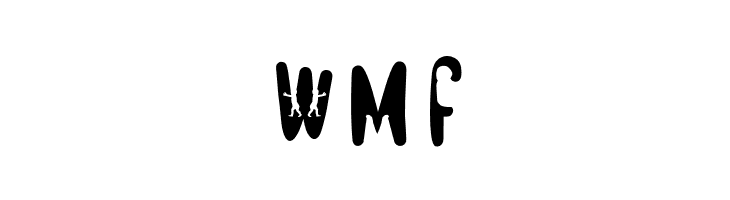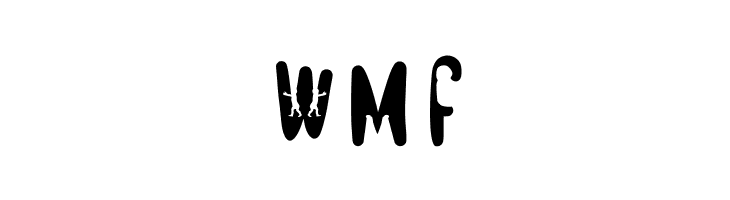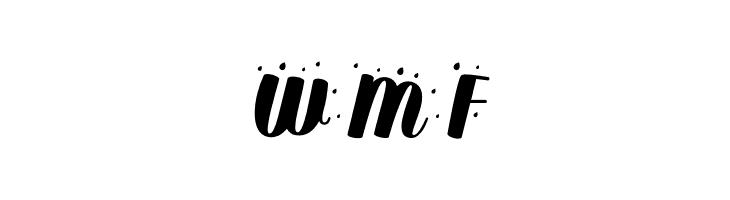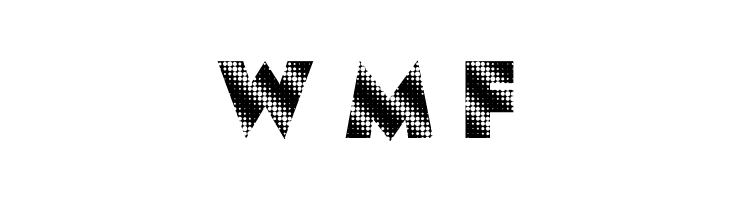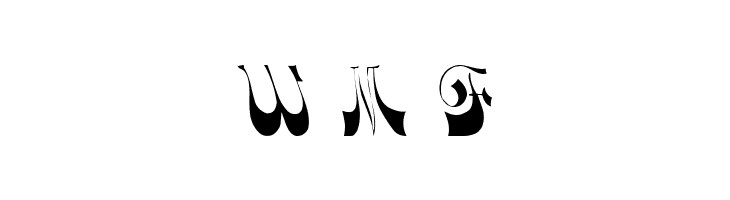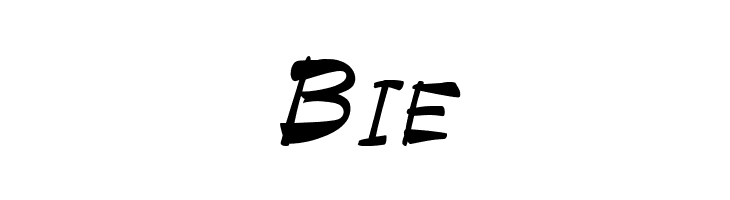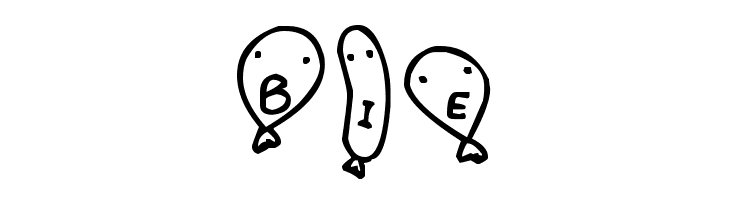
( Fonts by Untitled Motion )
A playful, polka-dotted decorative font with bold, rounded characters.
( Fonts by Untitled Motion )
A bold, dotted font with a playful and dynamic pop art style.
( Fonts by Billy Argel Fonts ® )
A bold, geometric decorative font with halftone patterns and sharp, modern lines.
( Fonts by Southype )
A bold, playful font with a two-tone color scheme and retro digital display style.
An ornate font with intricate Chinese-inspired motifs and decorative elements.
A decorative font with intricate floral designs within each letter.
A decorative font with intricate floral designs replacing traditional letters.
Ornamental font with Japanese-inspired emblematic illustrations.
A bold, decorative font with a mechanical, industrial aesthetic.
A bold, geometric font with playful circular cutouts, perfect for modern designs.
A bold, decorative font with circular elements and a modern, artistic style.
A decorative, dice-inspired font with numbers and dots inside pentagonal shapes.
( Fonts by Si Panji )
A bone-themed decorative font perfect for spooky designs.
( Fonts by Noah Type )
A bold, geometric font with a dynamic striped pattern for a modern, industrial look.
Ornate decorative font with dragon illustrations as characters.
( Fonts by Isa D'Aniello )
A bold, decorative font with unique embedded patterns in uppercase letters.
( Fonts by Vunira Design )
A playful, child-themed font with bold, rounded letters and integrated silhouettes of children.
A playful, handwritten font with whimsical embellishments and medium contrast.
( Fonts by Brittney Murphy Design )
A bold, flowing script font with elegant curves and dynamic slant.
( Fonts by Mitch Greer )
A decorative and abstract font with swirling, dynamic patterns and high contrast.
A playful and casual handwritten font with bold, slightly slanted characters.
( Fonts by Vunira Design )
A playful, bold font with child silhouettes integrated into each letter.
A dynamic, energetic font with bold, sweeping strokes and jagged edges.
( Fonts by Brittney Murphy Design )
A bold, playful script font with a handwritten, flowing style.